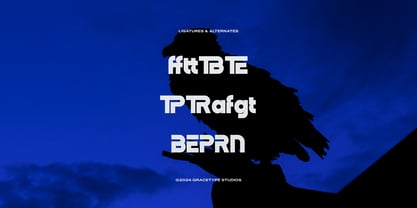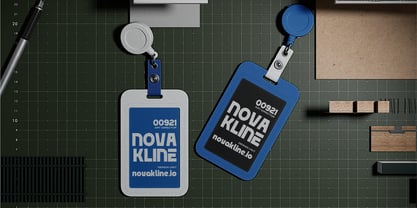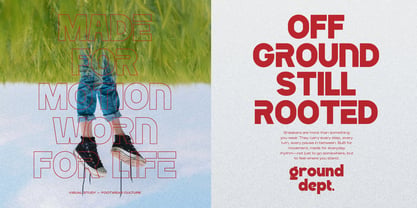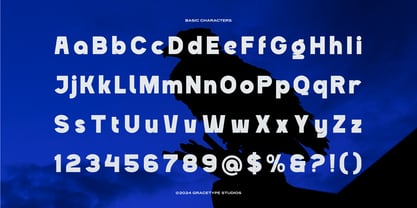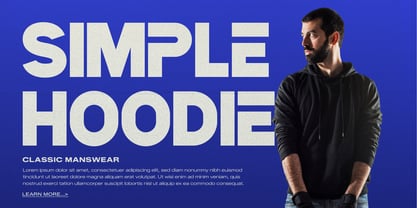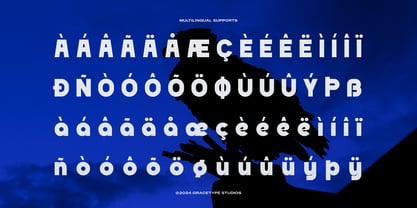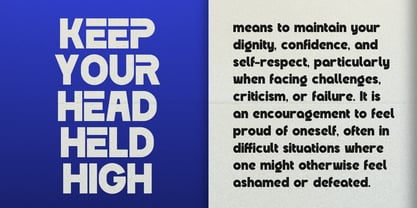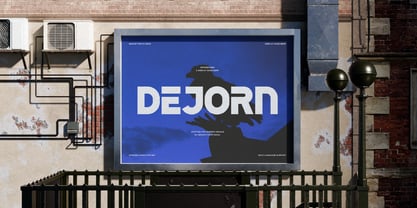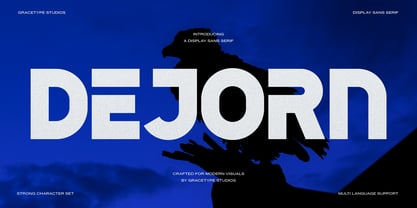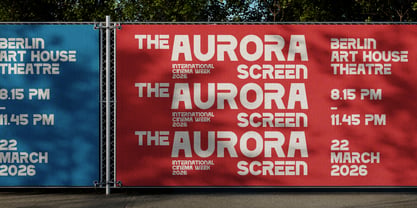
Dejorn
Dejorn | Display Sans Serif, from Gracetypestudio, suitable for any projects such as: logos, branding projects, homeware designs, product packaging, mugs, quotes, posters, shopping bags, t-shirts, book covers, name card, invitation cards, greeting cards, label, photography, watermark, special events, and all your other lovely projects that need a Sans taste.